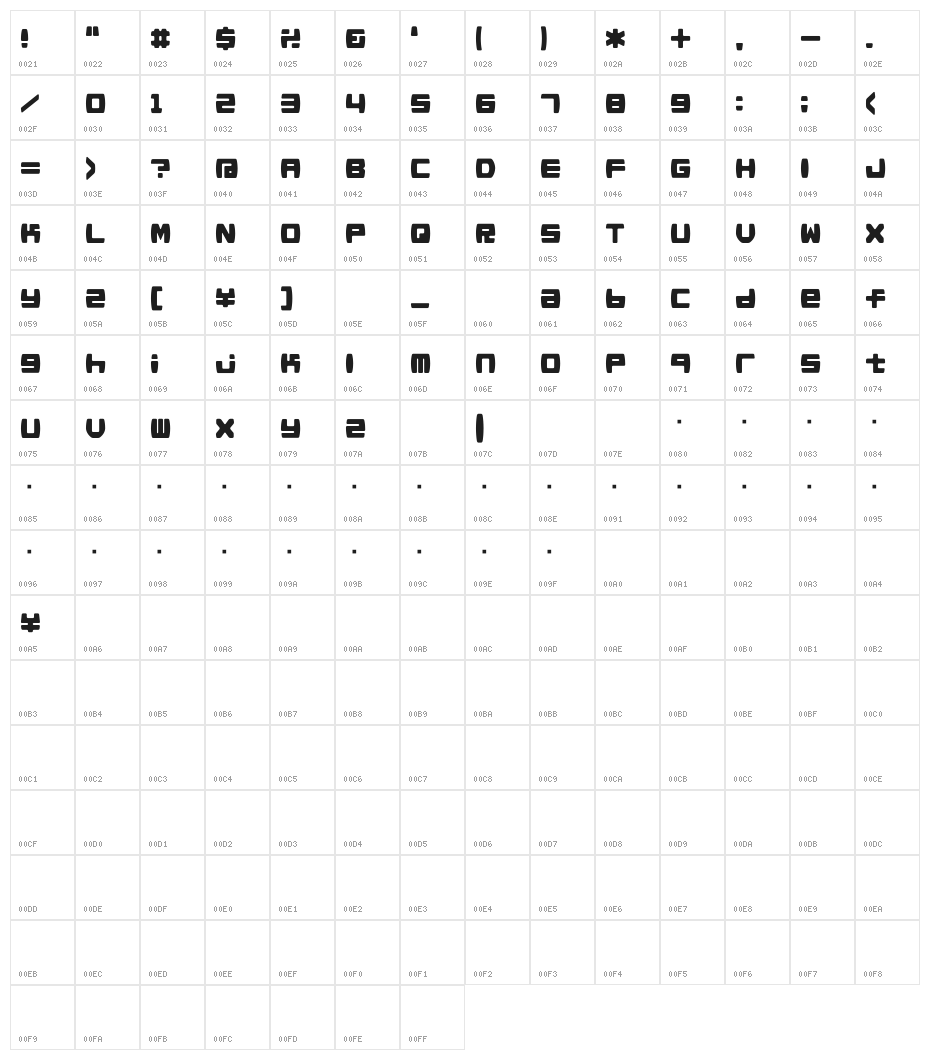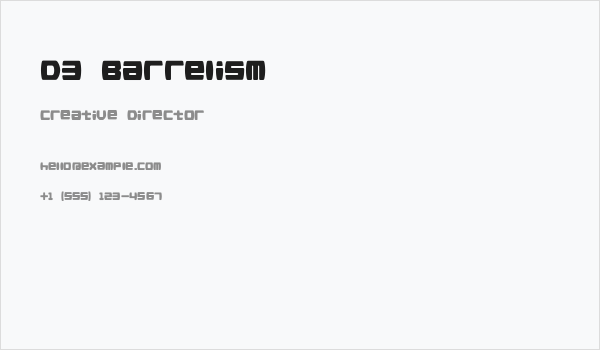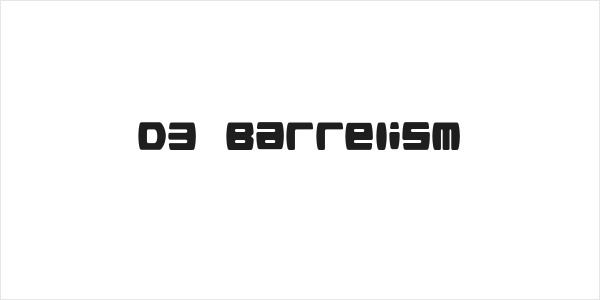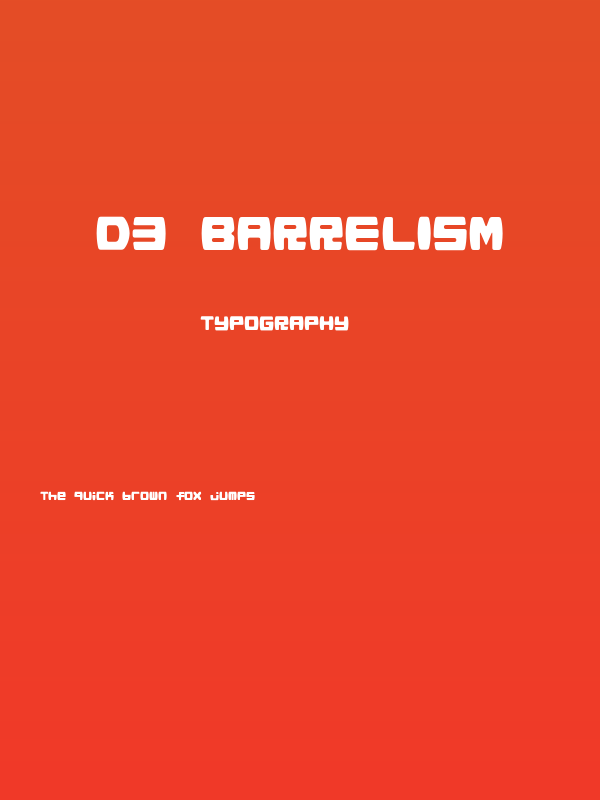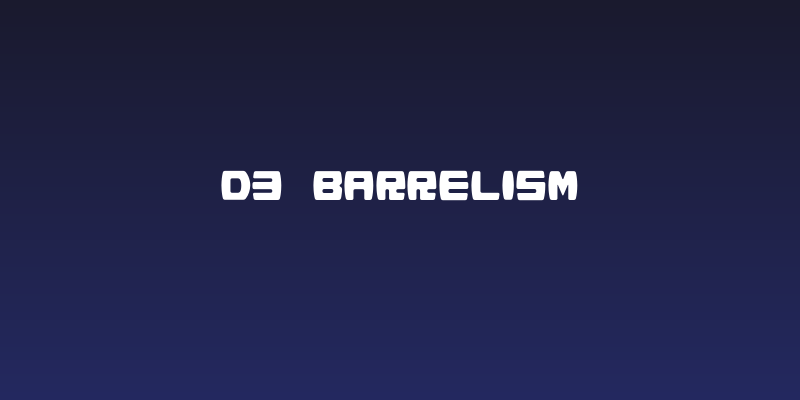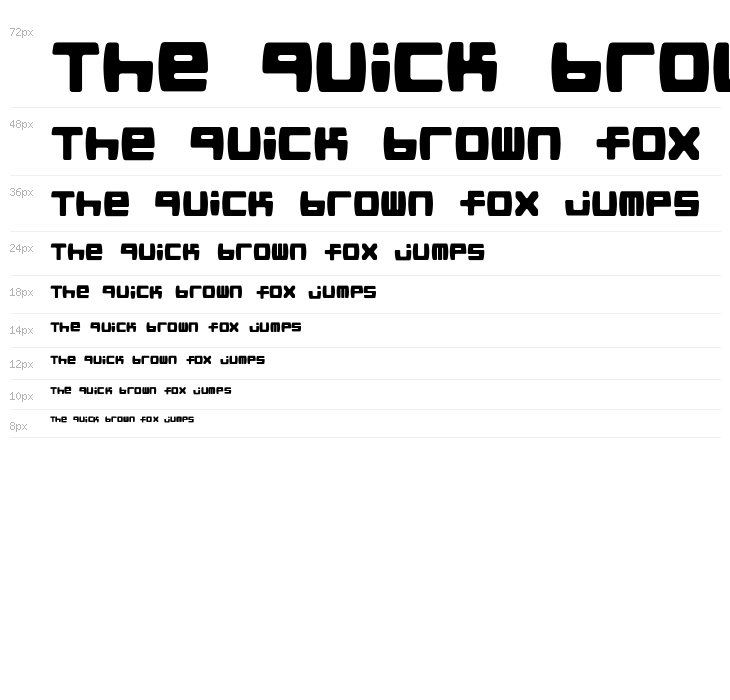
D3 Barrelism Font
D3 Barrelism Description
This font features a bold and rounded style with a modern, futuristic appearance. The characters are uniformly thick, giving a strong and impactful look. The rounded edges and consistent stroke width create a smooth and approachable feel, while maintaining a sense of strength and stability. The uppercase and lowercase letters are distinct yet harmonious, and the numerals are clear and easily readable. Special characters are designed to match the overall aesthetic, ensuring a cohesive look across all text elements.
| Proposed Projects | Ideal for technology branding, futuristic posters, video game titles, and sci-fi themed projects. |